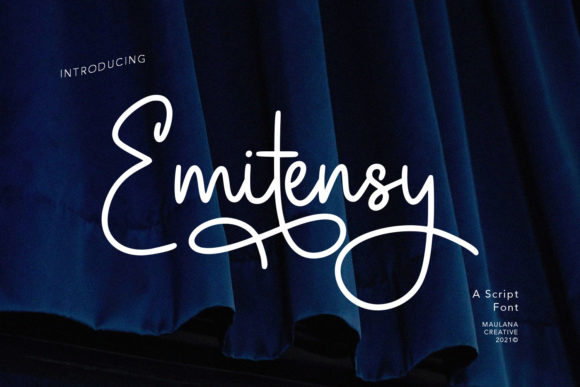
Introducing Emitensy Script Font, an enchanting and elegant handwritten script that will elevate your creative projects to new heights. Indulge in the allure of its exquisite cursive strokes, crafted with the utmost precision and artistry. Each letter dances across the page with a graceful fluidity, mirroring the beauty and individuality of your own penmanship.
With Emitensy Script, you hold the key to unlocking a world of possibilities. Its versatile nature makes it an ideal choice for a wide array of personal and professional endeavors. Whether you're penning heartfelt letters, crafting captivating invitations, or designing enchanting logos, this font will infuse your creations with a touch of timeless elegance.
Experience the joy of transforming ordinary words into extraordinary works of art. Emitensy Script empowers you to express your unique voice, adding a personal touch to every project you undertake. Its delicate and thin lettering lends a touch of sophistication, while its vintage charm evokes a sense of nostalgia and timeless allure.
Immerse yourself in the world of Emitensy Script, where your creativity knows no bounds. Embrace the beauty of handwritten letters and let your imagination soar. With this exceptional font at your disposal, you can create masterpieces that will leave a lasting impression.